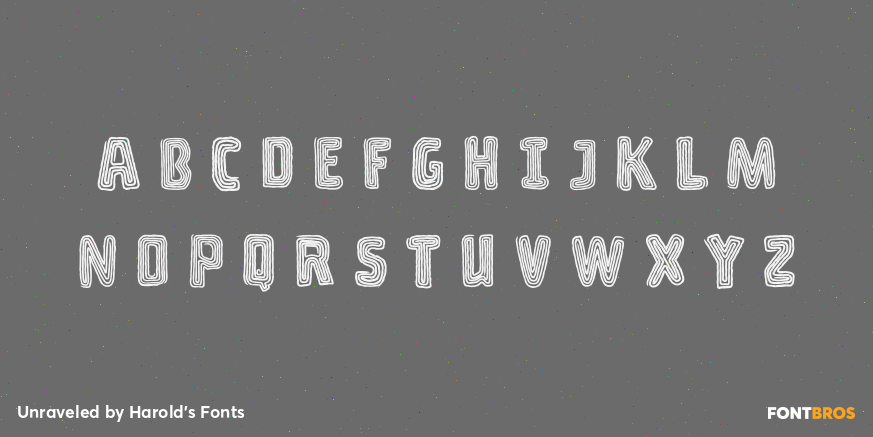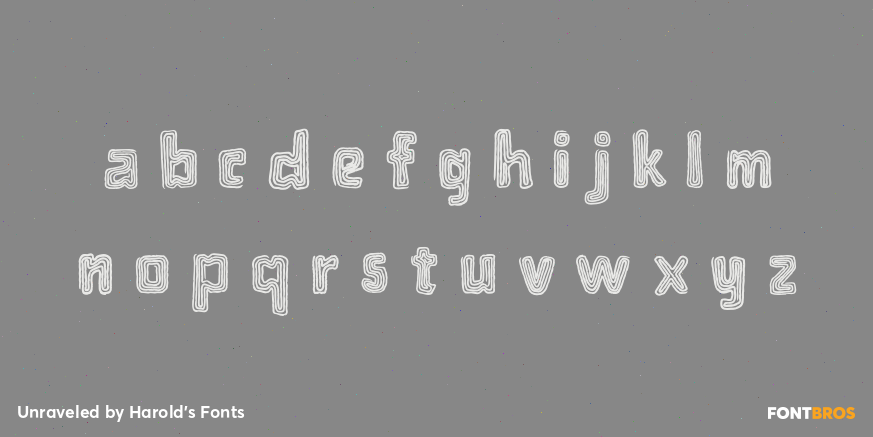
Unraveled
Font Family by Harold's Fonts
UNRAVELED is a fun font that looks like a craft project made with yarn or string. Each letter is a single fuzzy line wound round and round. Perfect for color and layering. Unraveled was inspired by the hand-lettered titles of Roger Corman’s 1959 horror comedy “A Bucket of Blood”, art directed by Daniel Haller. The film is set in a world of Beatnik artists and poets in San Francisco and is ripe for adaptation as a musical à la “Little Shop of Horrors.”